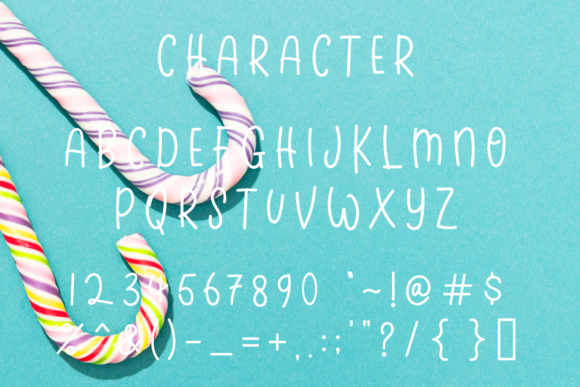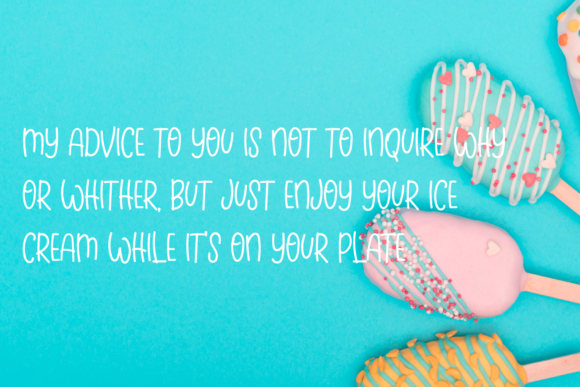
Jack Laughs Font
db-ku.com - Script & Handwritten -- Jack Laughs is a gorgeous yet quirky script font. Its natural and unique style makes it incredibly fitting to a large pool of designs. The only limit is your imagination!